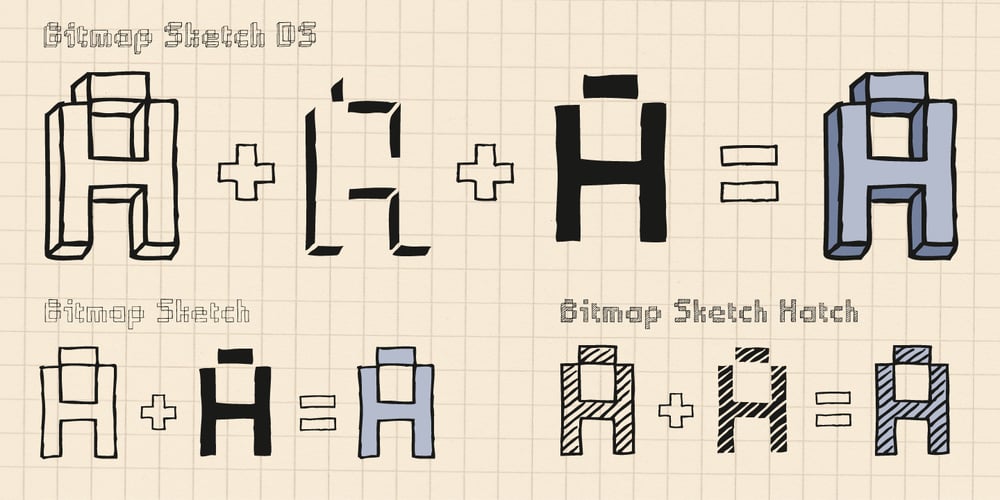
Bitmap Sketch
Bitmap Sketch font
Bitmap Sketch Font Family was designed by Jonathan Sleeman and published by The Tree is Green. Bitmap Sketch contains 7 styles and family package options. Inspired by early bitmap fonts, hand drawn for a contemporary twist.